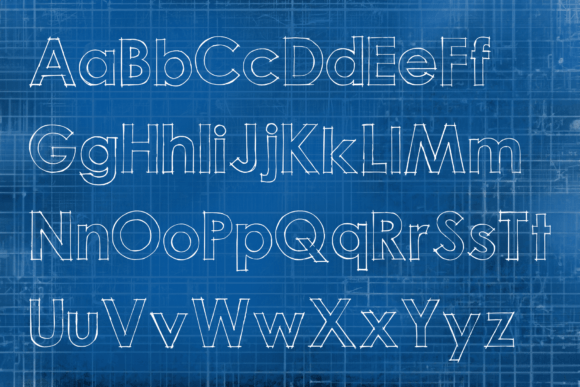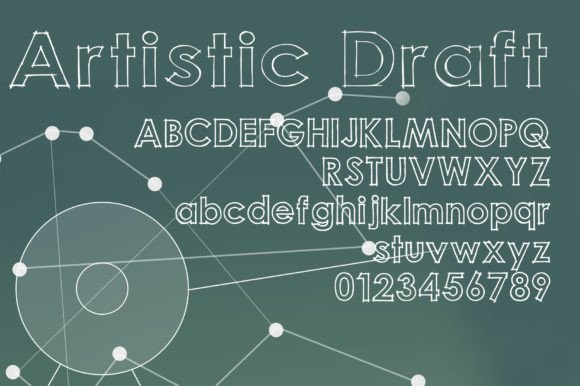
Introduction to Artistic Draft Font
Unleash the power of Artistic Draft font – inspired by the intricate lettering of architectural drawings.
Its delicate outline effortlessly enhances larger-scale graphics, breathing life into T-shirts, postcards, signs, and every artistic endeavor Elevate your projects with the irresistible charm of Artistic Draft font.
Key Features of Artistic Draft Font
Why Choose Artistic Draft Font?
Artistic Draft Font offers exceptional quality and versatility, making it a valuable addition to your design toolkit. Whether you’re creating for personal projects or commercial use, Artistic Draft Font delivers professional results.